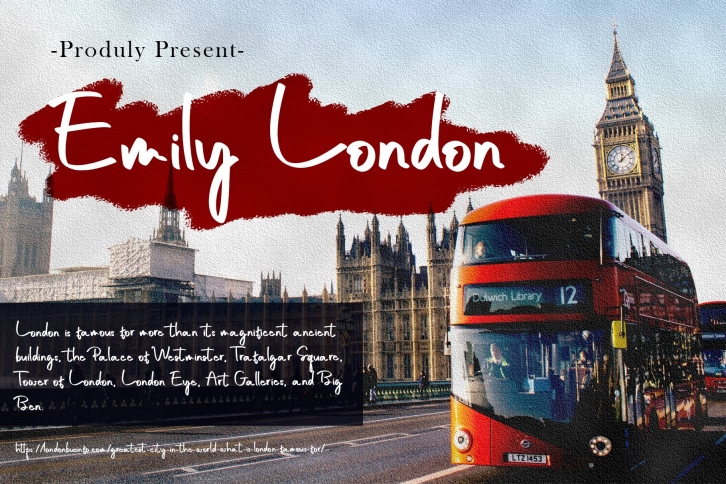
Welcome to the Idealogo Studio! We produce high-quality, professional fonts that are unique in creativity and help you to get your dream font. "Emily London" A Hand Lettered font with a personal touch on every line. Such a Signature style with simple but beautiful design. Emily London is perfect for various purposes such as branding, interior design, book title, printed on a t shirt, packaging, advertising, and many other stuff. Coming with a lot of language support, this font is perfect for you. Follow our shop for upcoming updates and don't forget to like. Let us know what creative things you will create with our fonts :) Get it now!